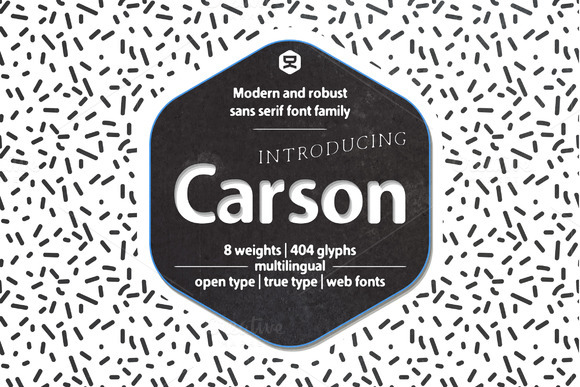
Introducing Carson Font: A Modern, Robust, and Versatile Sans Serif Font
Carson Font is a modern, robust, and slightly rounded sans serif font that has gained popularity among designers and typographers. Its clean and elegant design makes it an excellent choice for various purposes, including headings, logos, invitations, t-shirt designs, greeting cards, posters, labels, book covers, brochures, and much more. In this article, we’ll explore the features, benefits, and uses of the Carson Font, and why it’s becoming a favorite among designers.
What is Carson Font?
Carson Font is a sans serif font, which means it doesn’t have the small lines or flourishes at the ends of the letters, giving it a clean and minimalist look. The font is designed to be highly legible, making it perfect for use in various contexts, from digital media to print materials. Its modern and robust design ensures that it stands out from other fonts, while its slightly rounded edges give it a friendly and approachable feel.
Key Features of Carson Font
- Modern and robust design: Carson Font has a sleek and contemporary look that makes it perfect for modern designs.
- Slightly rounded edges: The font’s rounded edges give it a friendly and approachable feel, making it suitable for a wide range of applications.
- Highly legible: Carson Font is designed to be easy to read, making it perfect for use in body text, headings, and titles.
- Versatile: The font can be used for various purposes, including headings, logos, invitations, t-shirt designs, greeting cards, posters, labels, book covers, brochures, and more.
Benefits of Using Carson Font
Carson Font offers several benefits to designers and typographers. Here are some of the advantages of using this font:
Advantages of Carson Font
- Universal appeal: Carson Font’s clean and modern design makes it appealing to a wide range of audiences.
- Easy to read: The font’s high legibility ensures that your text is easy to read, even at small sizes.
- Flexible: Carson Font can be used for various purposes, from digital media to print materials.
- Unique look: The font’s slightly rounded edges give it a distinctive look that sets it apart from other sans serif fonts.
Uses of Carson Font
Carson Font is a versatile font that can be used for various purposes. Here are some of the ways you can use this font:
Applications of Carson Font
- Headings and titles: Use Carson Font to create bold and eye-catching headings and titles.
- Logos and branding: The font’s modern and robust design makes it perfect for logos and branding materials.
- Invitations and greeting cards: Carson Font’s elegant design makes it suitable for invitations and greeting cards.
- T-shirt designs: The font’s bold and modern design makes it perfect for t-shirt designs.
- Posters and flyers: Use Carson Font to create eye-catching posters and flyers.
- Labels and packaging: The font’s clean and elegant design makes it suitable for labels and packaging materials.
- Book covers and brochures: Carson Font can be used for book covers and brochures to create a professional and modern look.
Tips for Using Carson Font
Here are some tips for using Carson Font effectively:
Best Practices for Using Carson Font
- Use it in large sizes: Carson Font looks great in large sizes, making it perfect for headings and titles.
- Experiment with colors: The font’s clean design makes it easy to use with different colors and backgrounds.
- Pair it with other fonts: Carson Font can be paired with other fonts to create a unique and visually appealing design.
- Use it consistently: Use Carson Font consistently throughout your design to create a cohesive look.
Carson Font is a modern, robust, and slightly rounded sans serif font that offers a wide range of benefits and uses. Its clean and elegant design makes it perfect for various purposes, from headings and titles to logos and branding materials. With its high legibility and versatility, Carson Font is becoming a favorite among designers and typographers. By following the tips and best practices outlined in this article, you can use Carson Font effectively to create stunning designs that capture your audience’s attention.